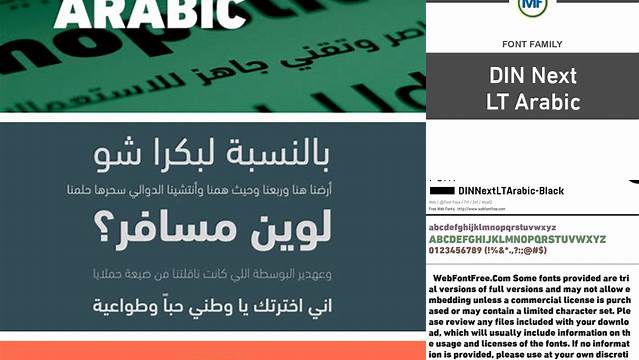
Are you on the hunt for a sleek and versatile Arabic font? Look no further, because we're diving deep into the DIN Next Arabic font family, and the best part? You can grab it for free! This article is your ultimate guide, covering everything from the font's characteristics and its suitability for various design projects, to where you can safely download it and how to install it. We will explore why DIN Next Arabic has become a go-to choice for designers, and how you can leverage its unique features to elevate your creative work. So, let's get started, guys!
What is DIN Next Arabic?
First things first, let's get to know the star of the show: DIN Next Arabic. It’s a modern, clean, and highly legible typeface. It's a variant of the popular DIN Next family, which is renowned for its clarity and functionality. The Arabic version seamlessly blends the geometric principles of the original DIN Next with the flowing aesthetics of Arabic script. This fusion results in a font that is both contemporary and culturally relevant. DIN Next Arabic is designed to be incredibly readable, making it perfect for both long-form text and display purposes. Its design takes into account the unique challenges of Arabic typography, ensuring that letters connect smoothly and harmoniously. This font family includes various weights, allowing you to add emphasis and visual hierarchy to your designs. Plus, it supports a wide range of characters, ensuring that you won’t miss out on any essential glyphs needed for your projects. It's a workhorse font, capable of handling everything from headlines to body text with equal grace and style. The adaptability of DIN Next Arabic extends to different design contexts, whether you're working on a website, a print publication, or a mobile app. This font's neutral yet distinct personality makes it an ideal choice for a wide spectrum of projects, from corporate branding to creative endeavors. So, why is DIN Next Arabic such a popular choice? Its versatility, readability, and modern aesthetic have made it a favorite among designers worldwide. It’s not just a font; it’s a design tool that can transform your projects. The design considerations, such as the careful balance between geometric shapes and the fluid curves of Arabic script, make this font stand out. When using DIN Next Arabic, you're not just selecting a font, you're choosing a design partner that will help you bring your creative visions to life. With its clean lines and excellent legibility, this font is designed to be easily consumed, making it perfect for a variety of applications. Whether you’re working on a corporate identity, a website, or a marketing campaign, DIN Next Arabic can deliver the impact you need.
Let's delve into the intriguing details of DIN Next Arabic. This font family boasts several key features that make it a standout choice. First and foremost is its exceptional readability, which stems from its clear and uncluttered design. The font is engineered to provide high legibility, even in small sizes, ensuring that your text is easily readable, regardless of the viewing environment. One of the defining characteristics is its geometric structure, borrowed from the original DIN Next. This gives the font a modern and clean appearance that appeals to a wide audience. The Arabic characters are carefully crafted to maintain this geometric aesthetic while preserving the fluidity of the Arabic script. The result is a font that feels both modern and culturally sensitive. DIN Next Arabic comes in a range of weights, from light to bold, which offers designers flexibility in creating visual hierarchies. This versatility allows you to emphasize different elements of your design, like headlines, body text, and calls to action. You can make some areas stand out by using a bold weight, and reserve lighter weights for the body text. Also, it supports a comprehensive character set, including various numerals, punctuation marks, and special characters, catering to diverse linguistic needs. This extensive support guarantees that you can use this font in a variety of languages, making it a truly global typeface. Another key characteristic is its excellent kerning, meaning the spacing between characters is carefully adjusted to maintain a balanced and harmonious appearance. This enhances readability and makes your text look professional and polished. Kerning can significantly improve the aesthetic appeal of your text and contribute to the overall quality of your design. Moreover, DIN Next Arabic is designed to perform well across different media. Whether you're working on print materials or digital platforms, the font maintains its clarity and visual appeal. You can rely on this font to provide a consistent look and feel across all your projects. In terms of its design philosophy, DIN Next Arabic is a blend of functionality and aesthetics. The design is optimized for clarity and ease of use, ensuring that the font is not only visually appealing but also practical. The font is suitable for an array of uses, from branding materials to website design. It has become a popular font in the design community because of its modern design, excellent readability, and versatility. Its clean lines and balanced character design contribute to a seamless visual experience, while the font's broad character support and multiple weights empower you to tailor the font to your specific needs.